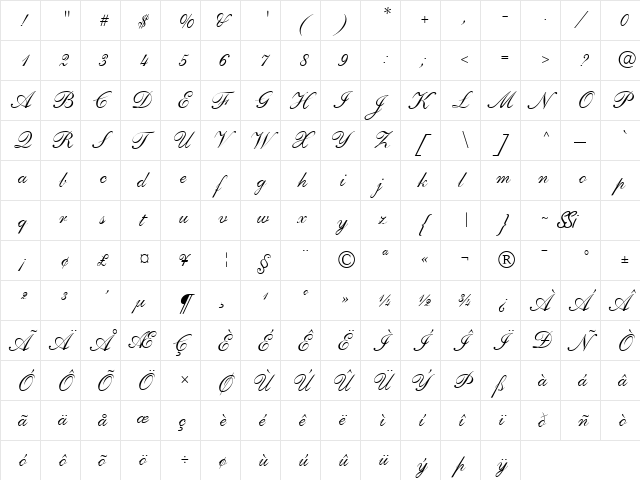
Pen Tweaks Two SSi Regular
Design Context for Pen Tweaks Two SSi Typeface
Pen Tweaks Two SSi is a composed and adaptable typeface that performs quietly and consistently across a wide range of design contexts.